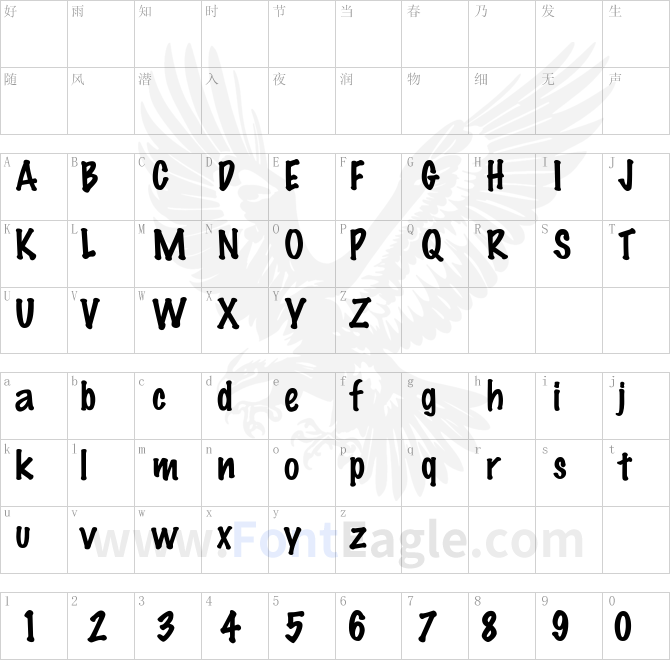
MarkerFeltThin is a great font, widely used in graphic design, single-page menu design, poster design and other fields, and is deeply loved by designers.MarkerFeltThin download.